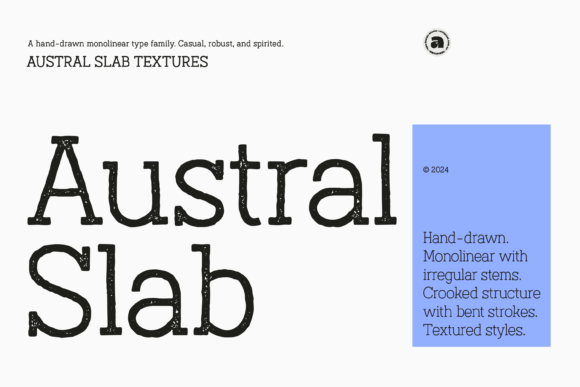
Austral Slab Textures Font: A Comprehensive Guide
Austral Slab is a hand-drawn layered type family that exudes a casual, robust, and spirited vibe. Its unique blend of monolinear spirit and irregular stems gives the fonts an eroded effect, making it a standout in the world of typography. Originally released in 2016, Austral Slab has undergone significant updates, culminating in version 2.000 in 2024, which boasts a new weight distribution, clean no-textured fonts, and enhanced glyph support.
Design and Features
Austral Slab’s design is characterized by its irregular stems, which give the fonts a distinctive eroded effect. This effect is particularly exaggerated in the Medium styles, adding a layer of depth and visual interest. The type family consists of three sets of alphabets that slightly differ, allowing for a more realistic irregular result. The Contextual Alternates feature is available in all styles, ensuring that the same textured letterforms are not repeated.
Textures and Layered Styles
Austral Slab offers a range of textures and layered styles, including:
- Blur: A softened style with round and heavy swelling at intersections, giving it a smooth, organic feel.
- Rough: Characterized by solid irregular contours, this texture adds a rugged, earthy feel to the fonts.
- Rust: This texture features a deteriorated effect over the glyphs, giving it a worn, vintage look.
- Stamp: With the appearance of a print that didn’t get enough ink, this texture adds a unique, distressed effect.
- Maplines: This layered style is uniquely filled with topographic map-like lines, adding a sense of depth and visual interest.
- Spots: A layered style that adds a playful, whimsical touch to the fonts.
Version 2.000 Updates
The 2024 update, version 2.000, brings significant enhancements to Austral Slab. Some of the key updates include:
- New Weight Distribution: A revised weight distribution that provides a more balanced and harmonious visual flow.
- Clean No-Textured Fonts: The addition of clean, no-textured fonts provides a versatile option for designers.
- Enhanced Glyph Support: Improved glyph support ensures that the fonts are more versatile and adaptable.
- OpenType Features: The update includes enhanced OpenType features, allowing for more creative possibilities.
- Corrections and Refinements: Specific character designs have been refined, ensuring a more polished and refined aesthetic.
Typography and Design Applications
Austral Slab’s unique blend of textures and layered styles makes it an ideal choice for a wide range of design applications, including:
- Branding and Identity: The font’s distinctive texture and layered styles make it perfect for creating memorable brand identities.
- Print Design: Austral Slab’s varied textures and styles add a tactile, organic feel to print designs, such as posters, flyers, and brochures.
- Digital Design: The font’s versatility and adaptability make it suitable for digital applications, including websites, mobile apps, and social media graphics.
Tips for Using Austral Slab
To get the most out of Austral Slab, consider the following tips:
- Experiment with Textures: Don’t be afraid to try out different textures and layered styles to find the perfect combination for your design.
- Mix and Match: Combine Austral Slab with other fonts to create a unique and visually appealing typography.
- Pay Attention to Legibility: While Austral Slab is designed to be distinctive, ensure that it remains legible, especially in smaller sizes.
Austral Slab Textures Font is a versatile and adaptable type family that offers a unique blend of textures and layered styles. With its updated features and enhancements, version 2.000 is an excellent choice for designers looking to add a touch of personality and whimsy to their designs. Whether you’re working on branding, print design, or digital design, Austral Slab is sure to make a lasting impression.